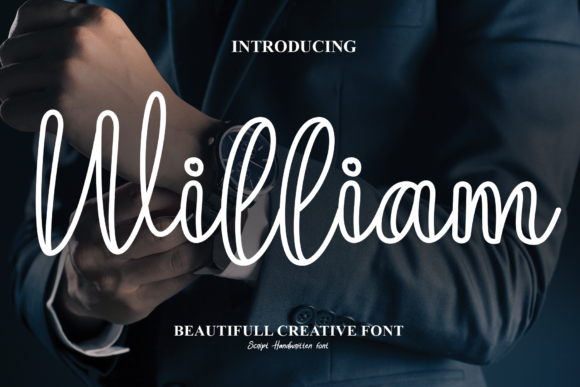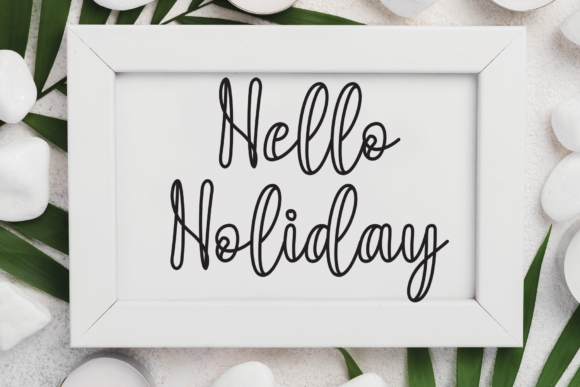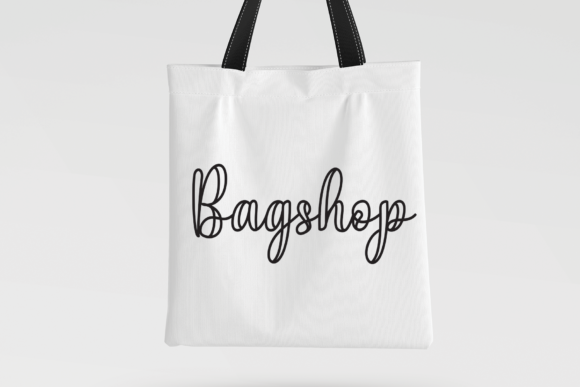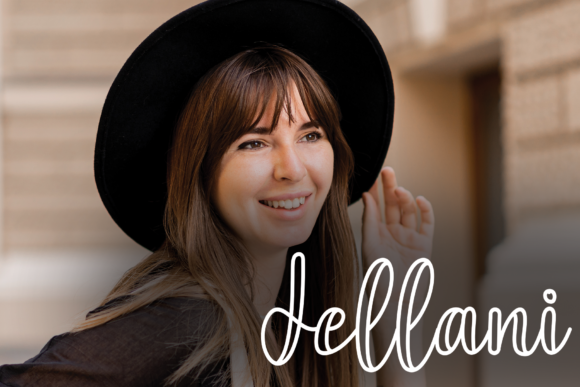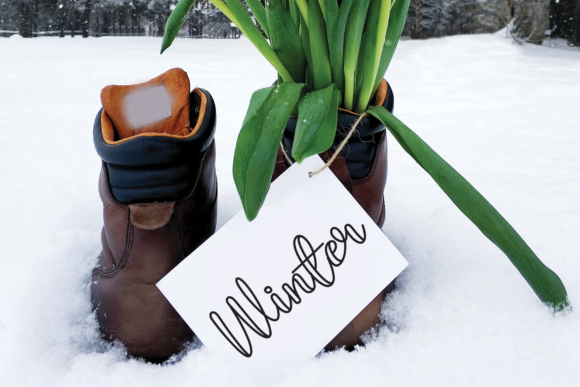
William Font
About William Font
William is a versatile and elegant handwritten font that brings a touch of simplicity and uniqueness to your design projects. Its adaptable nature makes it a great choice for a wide range of applications, allowing you to add a personalized and sophisticated touch to your creations.
The simplicity of William’s design is one of its key strengths. The clean and straightforward strokes of each letter create a sense of clarity and readability, making it suitable for various design purposes. Whether you’re using it for wedding invitations, business cards, or social media posts, the font’s simplicity ensures that your message is communicated effectively.
The uniqueness of William sets it apart from more traditional fonts. Its handcrafted appearance gives it a distinct character that adds personality and charm to your designs. This uniqueness is particularly valuable when you want to create memorable and eye-catching visuals that stand out from the crowd.
William’s adaptability makes it a valuable asset in your design toolkit. Its clean and elegant style allows it to seamlessly blend into different design aesthetics, making it suitable for both formal and casual contexts. Whether you’re creating a sophisticated wedding invitation or a playful social media post, William can be adjusted to suit the tone and style of your project.
The font’s handwritten quality adds a touch of authenticity and warmth to your designs. It creates a sense of connection and familiarity, making your audience feel more engaged and connected to your content. This can be especially impactful when used in personal projects like greeting cards or wall art.
Incorporating William into your design projects is made even easier by its adaptability and readability. The font’s clarity ensures that your message is conveyed effectively, and its elegant style elevates the overall aesthetic of your work. Its versatility allows you to experiment with various design elements while maintaining a cohesive and polished look.
Whether you’re designing wedding materials, business collateral, or social media graphics, William’s simplicity, uniqueness, and adaptability make it a reliable and elegant choice. Its handcrafted charm and clean lines bring a touch of sophistication to your projects, allowing you to create visually pleasing and engaging designs across various platforms.